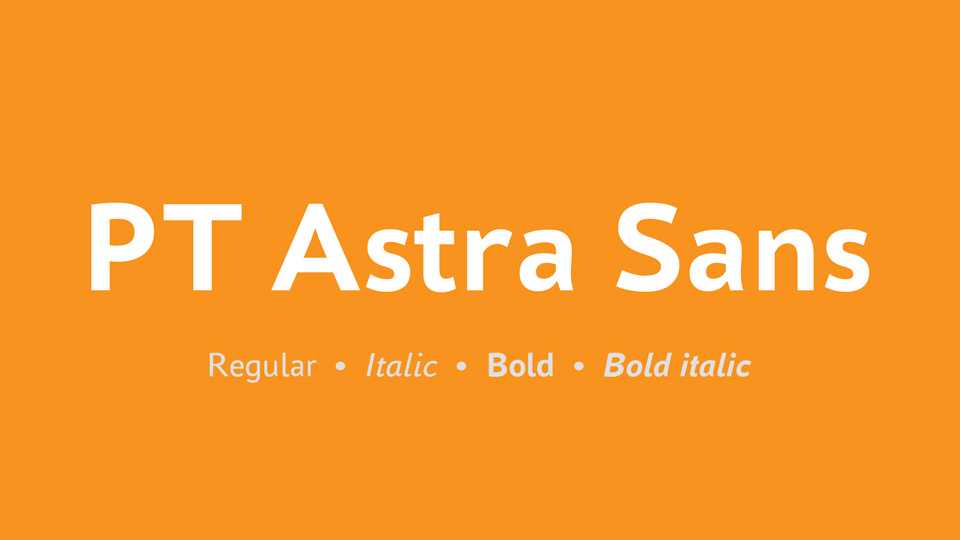
Download PT Astra Sans, a sans serif font family based on the PT Serif and modified so that the fonts fit the standards of paperwork, the standard for which is Times New Roman.